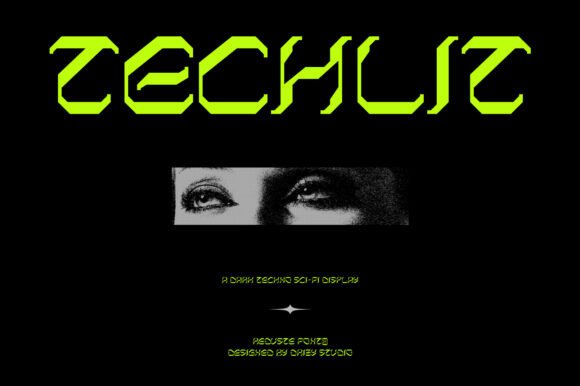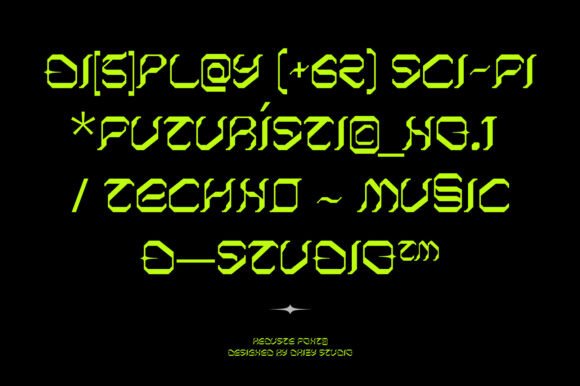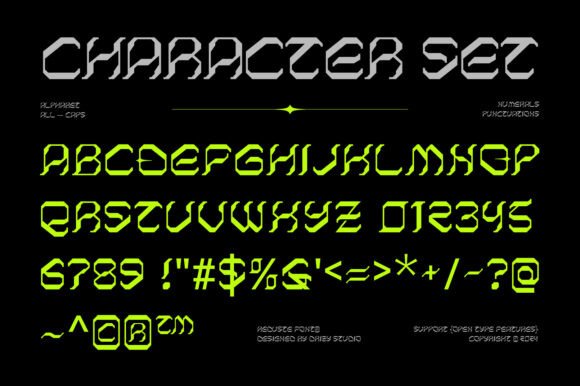
Introduction to Reduste Font
Imagine you’re brainstorming ideas for your next creative project, and you’re struggling to find the perfect font to capture the essence of your vision. You scroll through countless design resources, but nothing seems to resonate with your unique style. That’s when you stumble upon the Reduste Font, a game-changing design element that sets the tone for innovation and intensity.
The Reduste Font is a bold and electrifying font that fuses Dark Futuristic techno vibes with sci-fi aesthetics. Its sleek, futuristic edge makes it perfect for album covers, event posters, and digital visuals that demand attention. Whether you’re crafting a cyberpunk-themed flyer or a high-energy techno playlist cover, Reduste Font is a valuable design resource that can amplify your creative voice.
Key Features of Reduste Font
- High-quality vector design with a transparent background, ideal for creative projects.
- Designed to be a versatile design resource, suitable for a wide range of applications, from logos to typography.
- Includes a comprehensive set of characters, including uppercase and lowercase letters, numbers, and punctuation marks.
- Perfect for designers and artists looking for a unique and creative font to add a touch of personality to their work.
Honest Review: Reduste Font
I recently stumbled upon the Reduste Font and was excited to give it a try. As a designer, I’m always on the lookout for high-quality design resources that can elevate my creative projects.
Here are some of the things that I like about the Reduste Font:
- ✨ The font has a unique and modern design that works well for a variety of creative projects, from logos to typography-based designs.
- ⚠️ Some designers may find the font too modern or trendy, and may prefer a more classic or timeless look.
Overall, I’m impressed with the Reduste Font and think it’s a great addition to any designer’s toolkit. It’s perfect for designers who want a unique and modern look for their creative projects.
Tips for getting the most out of Reduste Font include experimenting with different font sizes and colors to create a unique look.
Common use cases include social media graphics, flyers, brochures, and presentations.